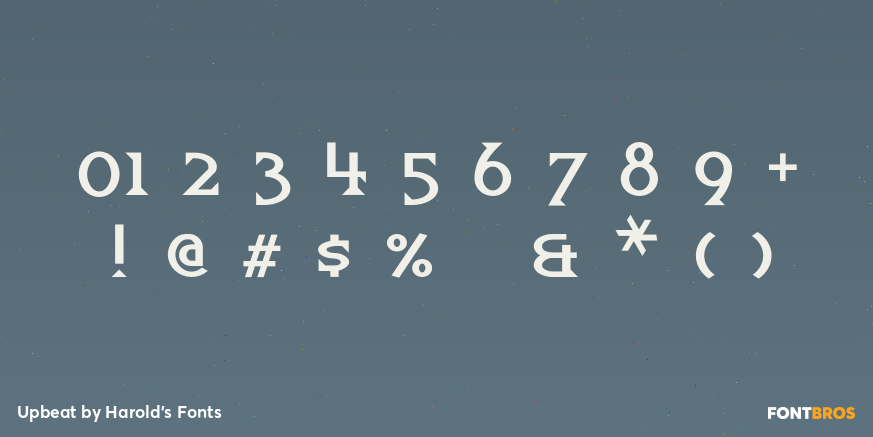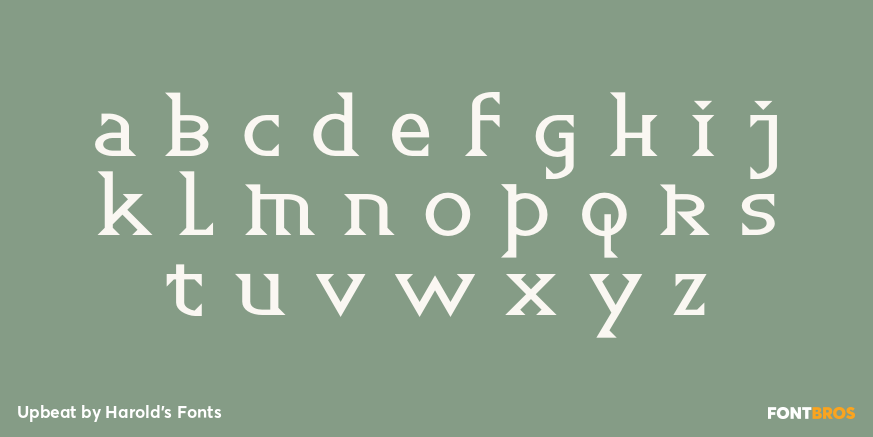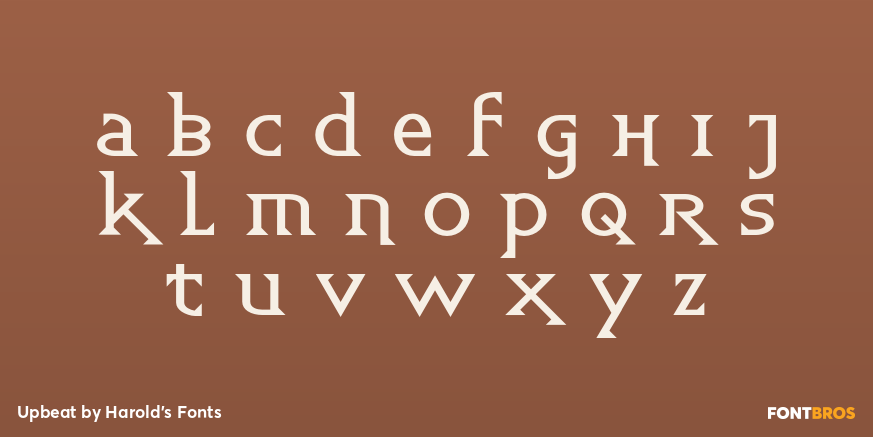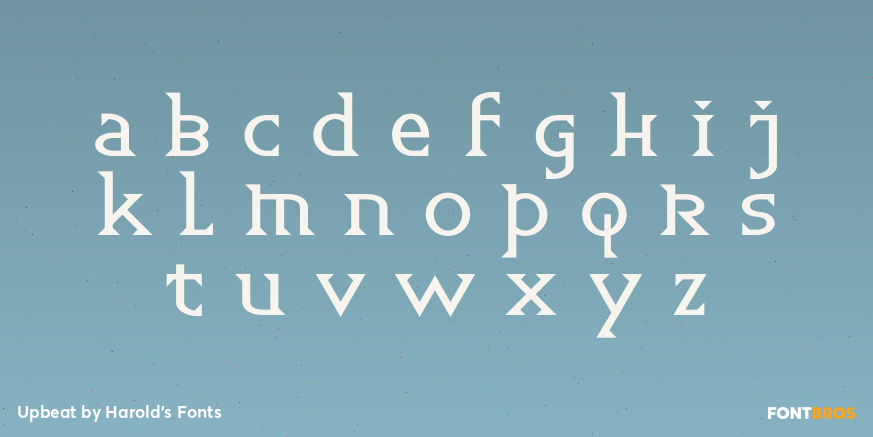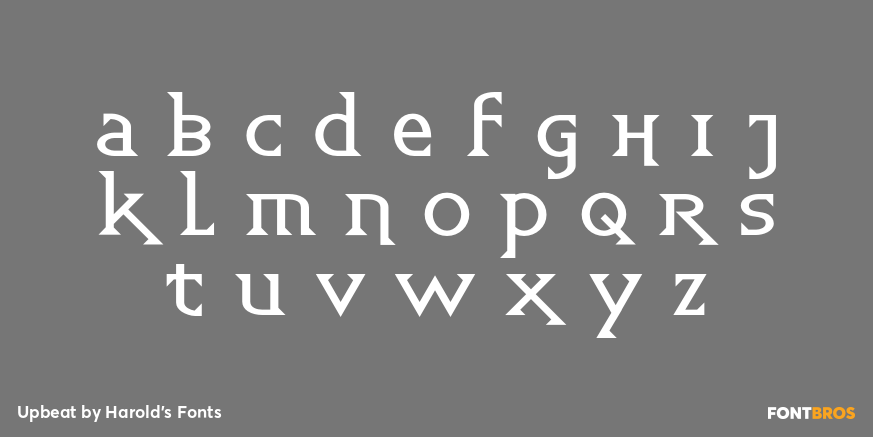
Upbeat
Font Family by Harold's Fonts
Quirky UPBEAT could be categorized as a latin uncial. "Uncial" because it has one case, of x-height plus ascenders and descenders in the style of so-called uncial and half-uncial fonts. "Latin" because of the triangular serifs which give the font a lively texture. In three weights, Regular, Demi and Bold